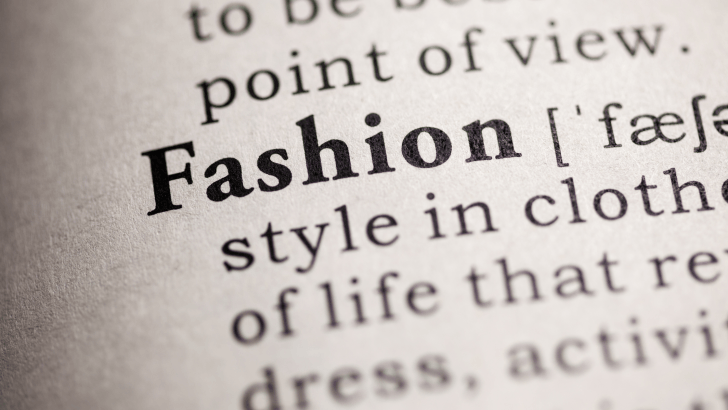
In today’s conscious market, sustainable fashion brands use fonts as a powerful visual tool to communicate identity, values, and ethical commitment. In fact, sustainable fashion fonts play a crucial role in shaping how consumers perceive a brand’s values, authenticity, and environmental commitment.
Fonts are often the first visual element people notice on a website, clothing tag, or packaging. For sustainable fashion brands, typography is not just decoration; it is a storytelling tool that communicates responsibility, transparency, and purpose.
Why Typography Matters in Sustainable Fashion Branding
Typography helps translate abstract values like sustainability and ethics into something visible and tangible.
Fonts Communicate Brand Values Instantly
Before customers read a single word, the font already sends a message. A clean, minimal typeface may suggest transparency and honesty, while an organic, handwritten font can imply craftsmanship and care for nature.
Sustainable fashion brands often choose typography that feels:
- Honest and transparent
- Calm and natural
- Timeless rather than trend-driven
Key Characteristics of Sustainable Fashion Fonts
Not every font fits a sustainability-focused brand. There are several shared characteristics commonly found on sustainable fashion fonts.
1. Simplicity and Clarity
Simple fonts reduce visual noise and reflect minimalist values. They also improve readability on websites and product labels.
2. Timeless Design
Sustainable brands avoid overly trendy fonts. Timeless typography aligns with the idea of long-lasting products and slow fashion.
3. Human and Natural Feel
Many brands prefer fonts with subtle imperfections or soft curves to create a more human and approachable tone.
How Sustainable Fashion Brands Use Fonts Across Touchpoints
Typography must stay consistent across all brand elements.
Fonts on Sustainable Fashion Websites
Websites are often the main communication channel. Fonts used here need to be:
- Easy to read on all devices
- Calm and balanced
- Accessible for global audiences
Clean sans-serif fonts are popular for body text, while softer serif or humanist fonts are used for headlines.
Fonts on Clothing Labels and Packaging
Clothing tags, packaging, and care labels are physical representations of the brand.
Sustainable brands usually choose:
- Legible fonts for small sizes
- Neutral colors combined with soft typography
- Minimal layouts to reduce ink usage
Typography here reinforces the idea of responsibility and conscious consumption.
Serif vs Sans-Serif in Sustainable Fashion Fonts
Both serif and sans-serif fonts are used sustainably, depending on the brand’s personality.
Sans-Serif Fonts for Modern Sustainability
Sans-serif fonts are often associated with:
- Clean design
- Transparency
- Modern ethical brands
They work well for brands focusing on innovation, recycled materials, and modern production methods.
Serif Fonts for Craft and Heritage
Serif fonts suggest tradition and craftsmanship.
They are commonly used by:
- Artisan fashion brands
- Heritage-inspired sustainable labels
- Brands focusing on handmade or local production
Using serif fonts helps convey depth, history, and authenticity.
Final Thoughts on Sustainable Fashion Fonts and Brand Identity
Typography is a powerful but often underestimated branding tool. Sustainable fashion fonts help brands express their mission, values, and personality without saying a word.
By choosing fonts that are simple, timeless, and human-centered, sustainable fashion brands can:
- Strengthen brand identity
- Build consumer trust
- Communicate ethics visually
In a world where consumers care deeply about transparency and responsibility, the right font choice can quietly but effectively reinforce what a brand stands for.